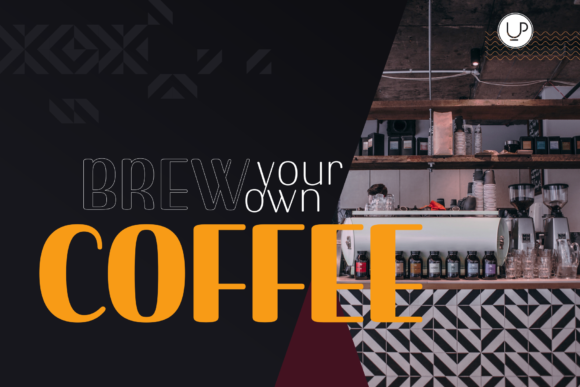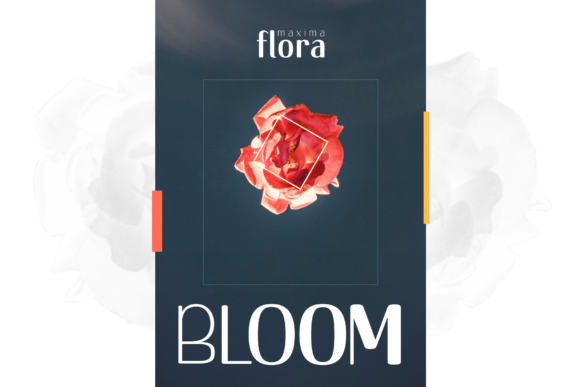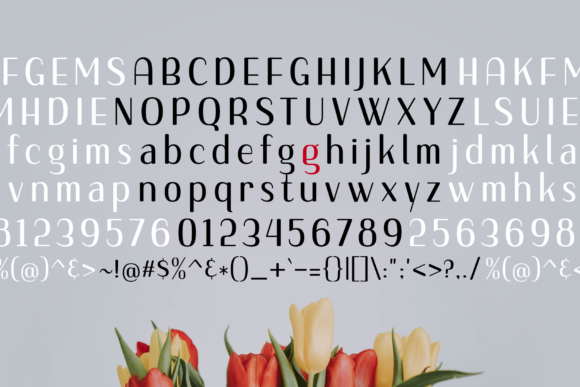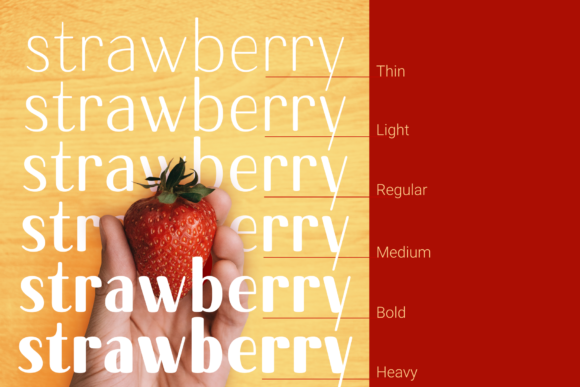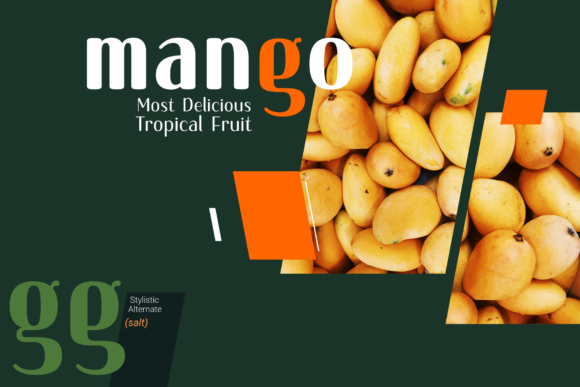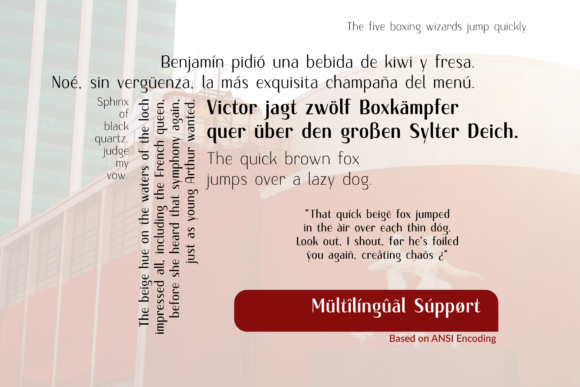
Introducing Gojet Font: The Bold and Modern Sans Serif for Creative Projects
In the world of typography, fonts play a crucial role in conveying the tone and personality of a design. For crafty ideas, a well-chosen font can elevate the entire project, making it more engaging and visually appealing. If you’re a designer or crafter looking for a bold and modern sans serif font, look no further than Gojet Font. In this article, we’ll explore the features and benefits of Gojet, and why it’s the perfect choice for a wide range of creative projects.
What is Gojet Font?
Gojet is a bold and modern sans serif font, designed to make a statement. Its original look is perfect for a variety of applications, from letterheads and titles to stationery and more. With its clean lines and sleek appearance, Gojet is ideal for designers and crafters who want to add a touch of sophistication to their work.
Key Features of Gojet Font
- Bold and Modern Design: Gojet’s bold and modern design makes it perfect for headlines, titles, and other applications where you want to grab attention.
- Sans Serif Style: The sans serif style of Gojet gives it a clean and sleek appearance, making it easy to read and versatile for various design projects.
- High Versatility: Gojet’s versatility makes it suitable for a wide range of creative projects, from letterheads and titles to stationery and more.
- Easily Readable: Despite its bold design, Gojet is easily readable, making it perfect for body text and other applications where legibility is important.
Benefits of Using Gojet Font
So, why choose Gojet Font for your next design project? Here are just a few benefits of using this versatile font:
- Enhance Your Brand’s Visual Identity: With Gojet, you can create a bold and modern visual identity for your brand that will help you stand out from the competition.
- Perfect for Creative Projects: Gojet’s unique design makes it perfect for a wide range of creative projects, from DIY crafts to professional design work.
- Easily Customizable: Gojet is easily customizable, allowing you to adjust the font to suit your design needs.
- Time-Saving: With Gojet, you can save time and effort in your design work, as its versatility means you can use it for multiple projects and applications.
How to Use Gojet Font in Your Design Projects
Using Gojet Font in your design projects is easy. Here are a few tips to get you started:
- Pair it with Other Fonts: Gojet pairs well with other fonts, making it easy to create a unique and visually appealing design.
- Experiment with Different Sizes: Gojet’s bold design looks great in a variety of sizes, from large headlines to smaller body text.
- Use it for Headlines and Titles: Gojet’s bold design makes it perfect for headlines and titles, where you want to grab attention.
In conclusion, Gojet Font is a bold and modern sans serif font that’s perfect for a wide range of creative projects. Its original look and high versatility make it a great choice for designers and crafters who want to add a touch of sophistication to their work. With its clean lines, sleek appearance, and easily readable design, Gojet is sure to become a go-to font in your design arsenal.